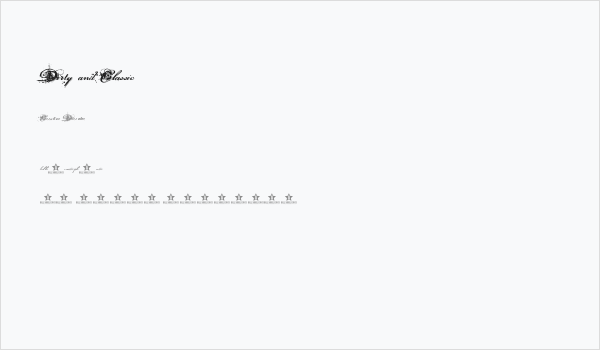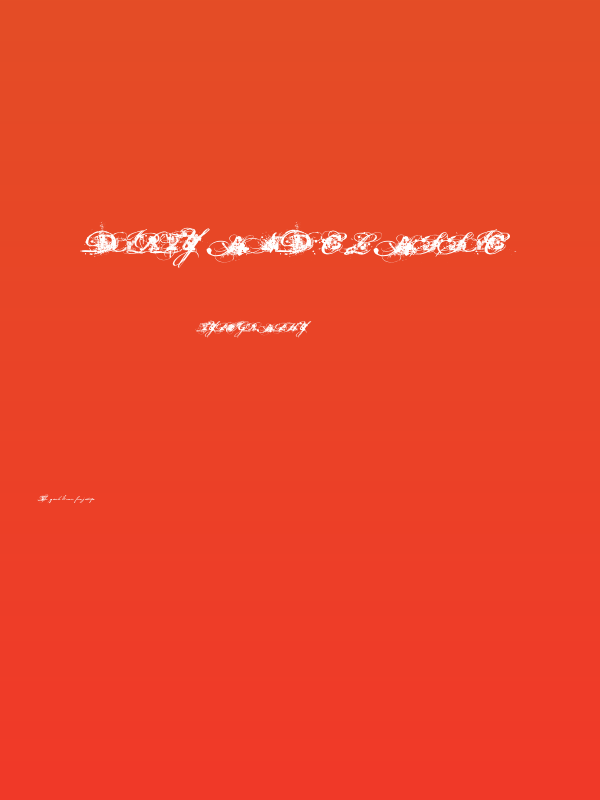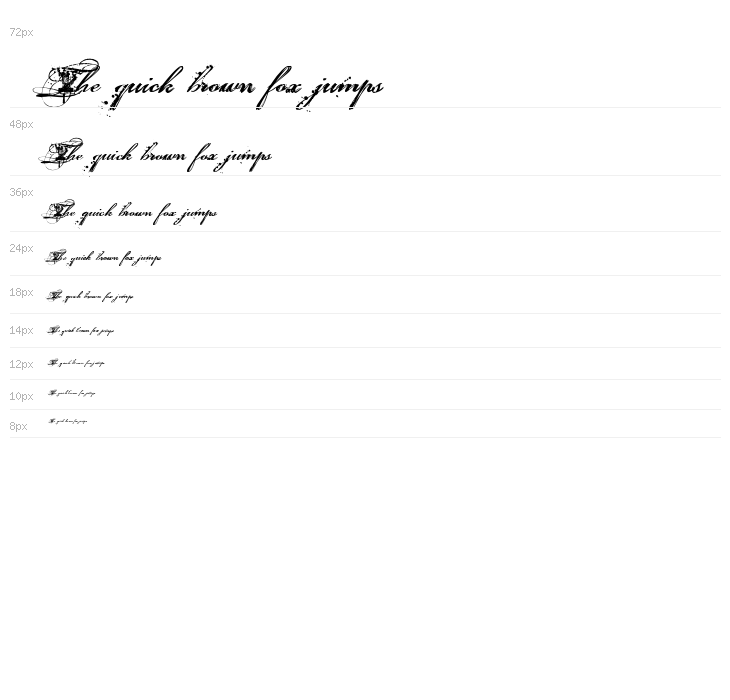
Dirty and Classic Font
Dirty and Classic Description
This font combines a gritty, textured appearance with classic script elements, creating a unique blend of elegance and edginess. The uppercase letters are heavily stylized with splatters and distressed effects, giving them a bold, artistic flair. The lowercase letters maintain a more traditional script style, offering a smoother and more readable contrast to the uppercase. The numbers and special characters follow the same distressed theme, adding to the overall cohesive look. This font is perfect for projects that require a touch of rebellious sophistication.
| Proposed Projects | Ideal for album covers, posters, branding for edgy or alternative products, and artistic projects. |